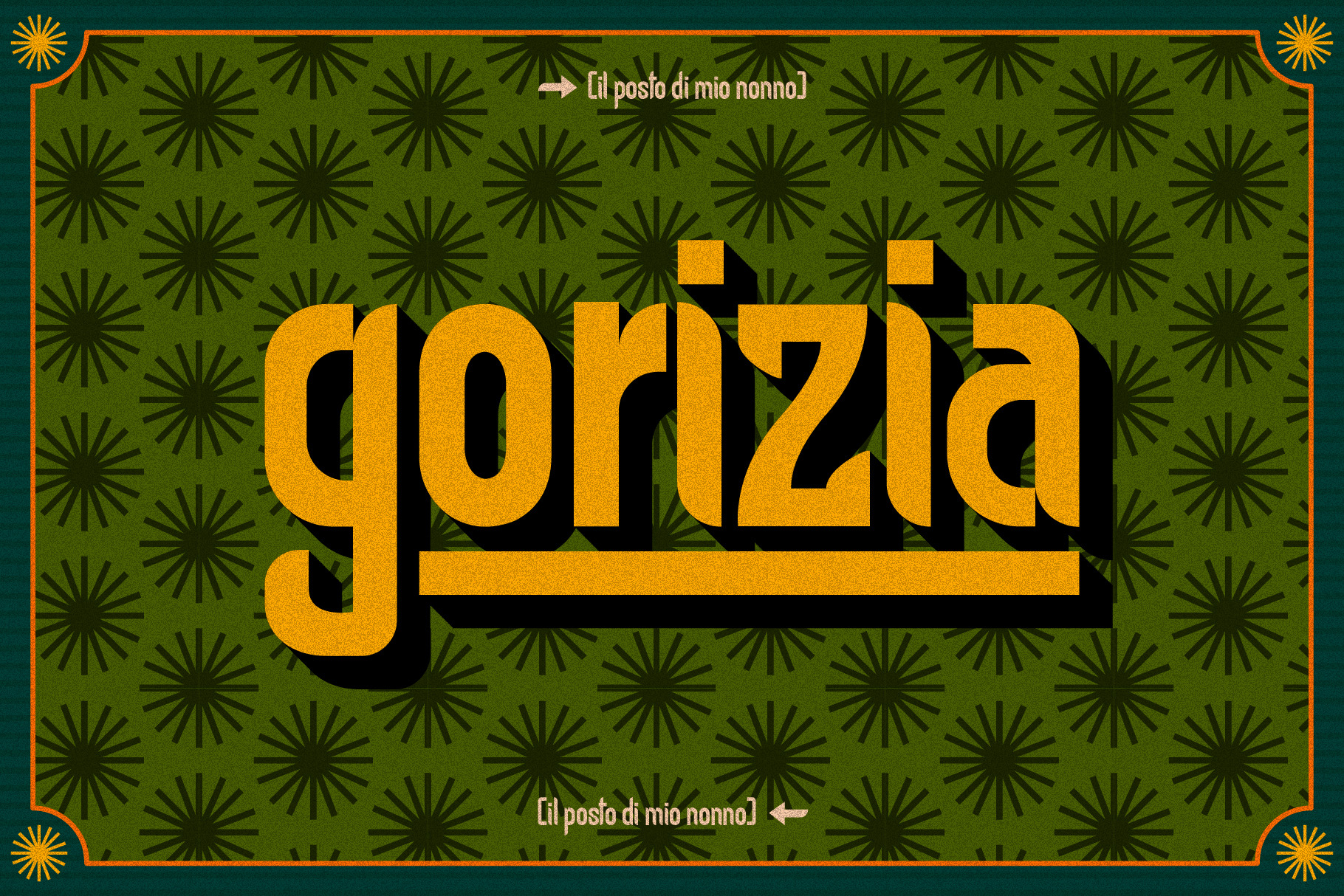
Gorizia font
I’m thrilled to introduce you to my latest typographic project named Gorizia. This display font has been meticulously crafted to make a bold and captivating statement in any project. Specifically designed for use in larger sizes, this typeface is perfect for titles, headers, and other elements that demand attention.
With firm geometric shapes and subtle curves that soften its terminations, strikes a perfect balance between modernity and classic aesthetics. Its design evokes an ancient era while remaining firmly rooted in the contemporary, offering a touch of nostalgia with a bold twist.